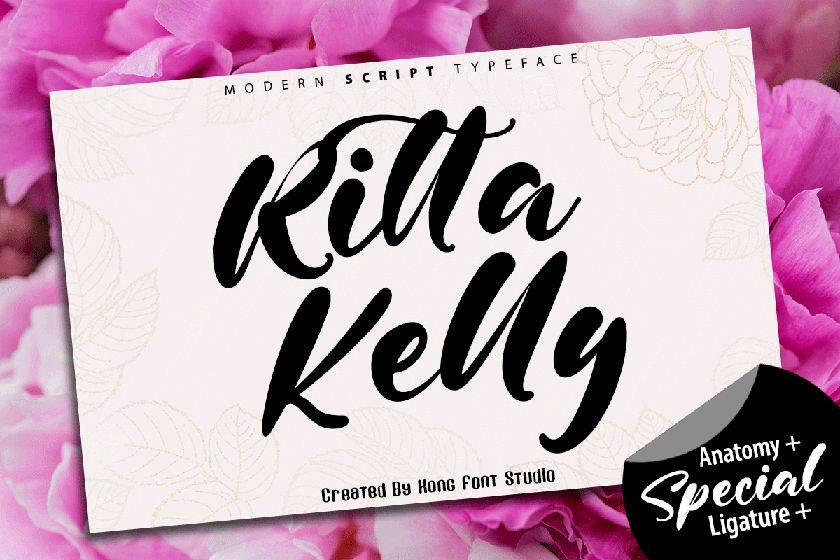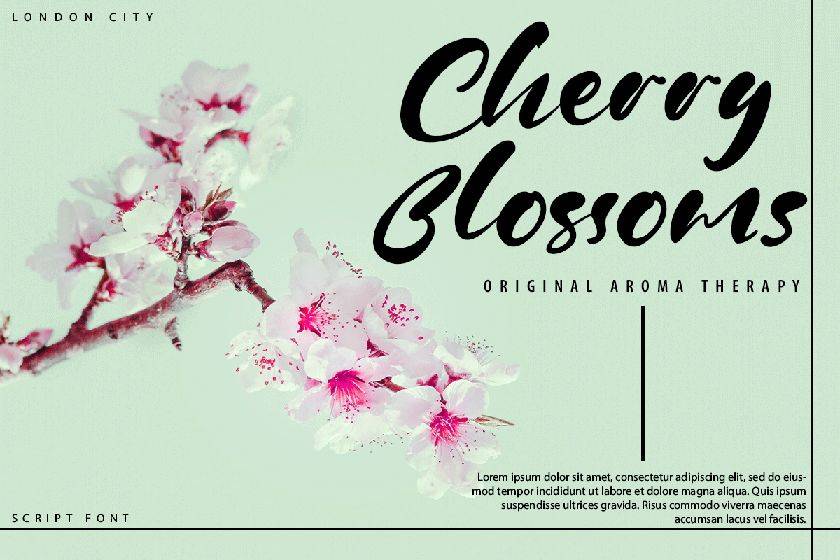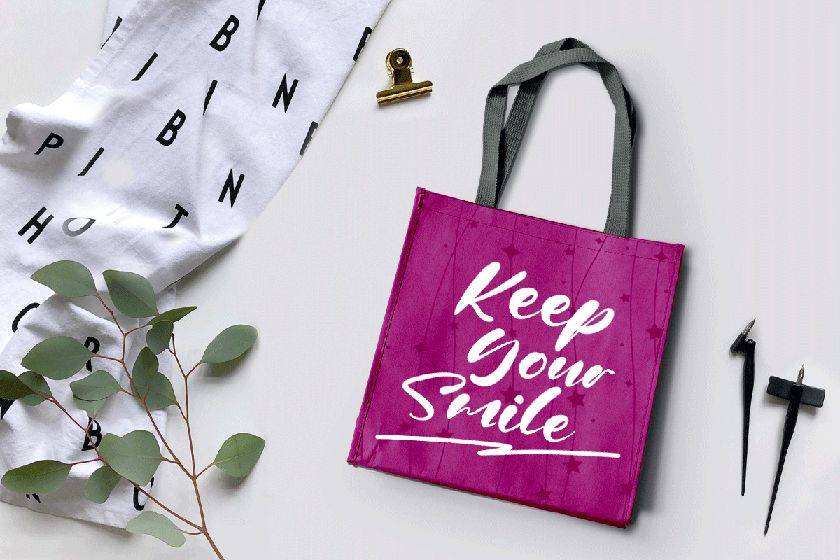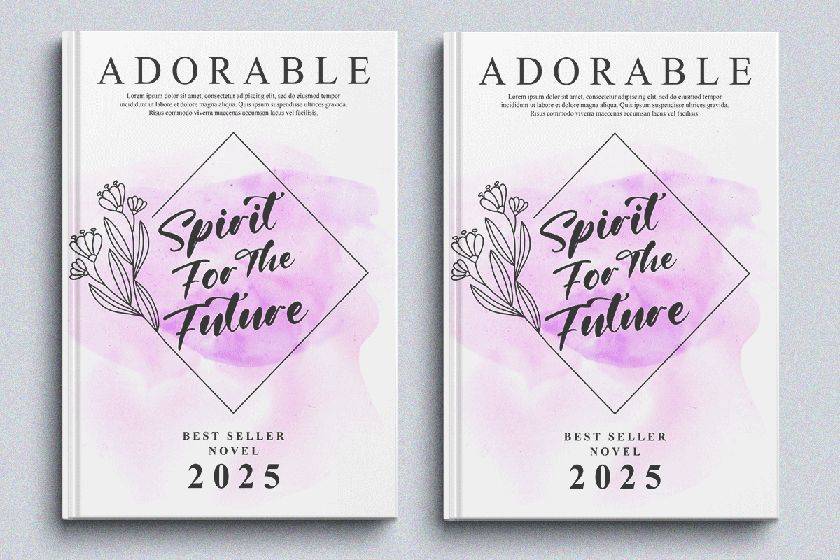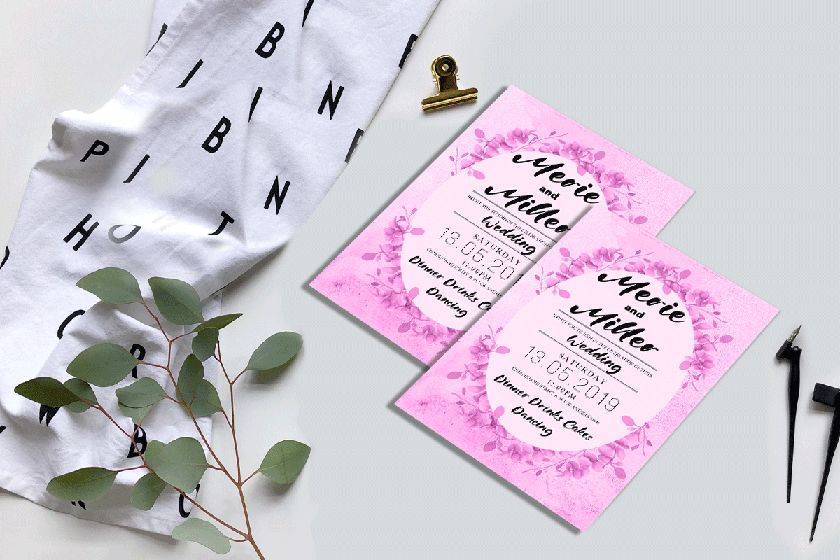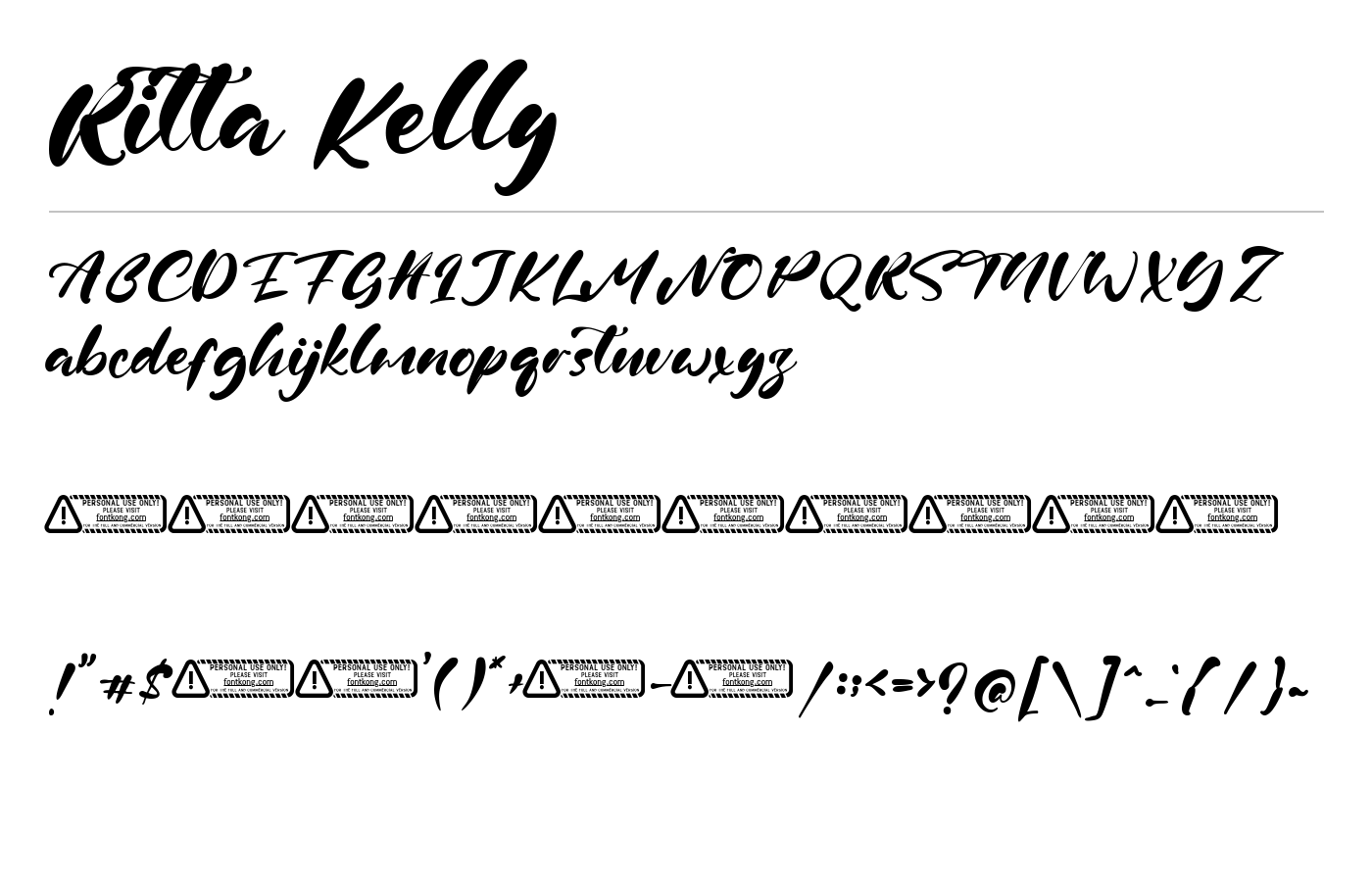
Ritta Kelly is a bold and lively script font with a strong, brushstroke style that gives it a casual yet confident personality. Its thick, flowing letterforms create an energetic and personal feel, making it ideal for branding, invitations, and headlines where a friendly and dynamic touch is desired. This font works well for creative projects that need a striking and approachable handwritten look.
Ritta Kelly Font
About Ritta Kelly Font